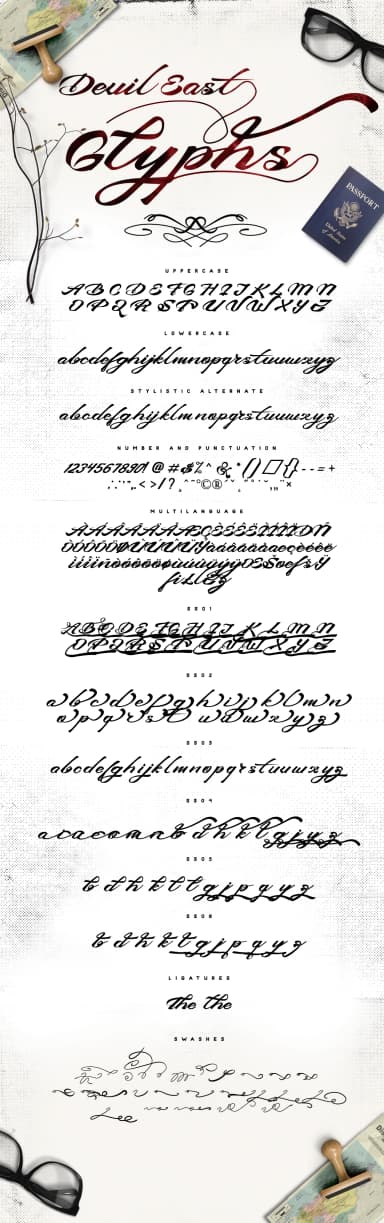
Devil East Font by feydesign is an ornamental script typeface designed for upscale branding projects and high-end visual applications. With its flowing letterforms and decorative elements, this font works well for creating distinctive logotypes and custom typographic treatments. The extensive glyph set includes multiple alternates and ornamental variations, giving you options to personalize each letter and refine your lettering work.
This script performs particularly well for luxury cosmetics packaging, where premium skincare and beauty brands benefit from its polished aesthetic. Wedding invitation designs gain elegance from its flowing forms, while boutique retail signage becomes more distinctive with its personality. Event announcements and upscale restaurant menus are also well-suited to this typeface, as applications requiring sophisticated typography demand its particular character.
Devil East Font is a script font that shines as a display or heading face. Pair it with a clean sans-serif or serif font for body text β the contrast creates a clear hierarchy while the two styles stay balanced and easy to read.